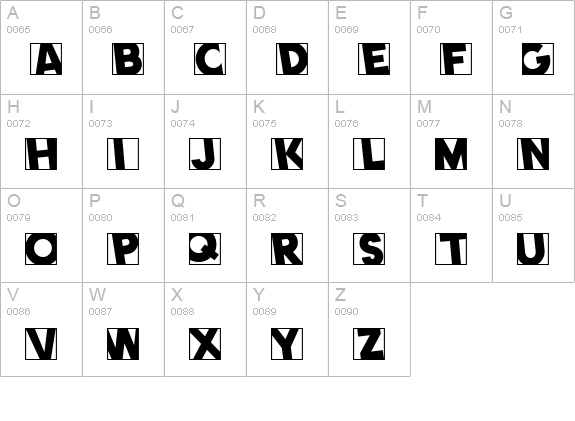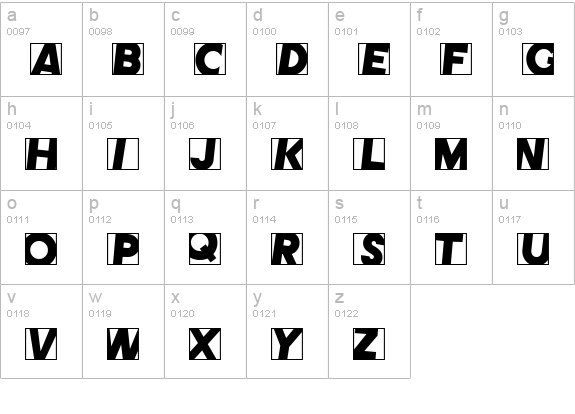
CometPositive Font Details
CometPositive is a modern and stylish font that exudes positivity and energy. This font features sleek lines and a contemporary design that is perfect for a wide range of creative projects. With its clean and legible appearance, CometPositive is ideal for adding a touch of sophistication to branding materials, websites, posters, and more. The versatility of this font makes it suitable for both professional and personal use. The best part about CometPositive is that it is completely free to download at FontsMarket.com. You can easily access this font and enhance your projects with its unique charm without any cost. Don't miss out on this opportunity to elevate your designs with the striking beauty of CometPositive font. Download it today and let your creativity soar!